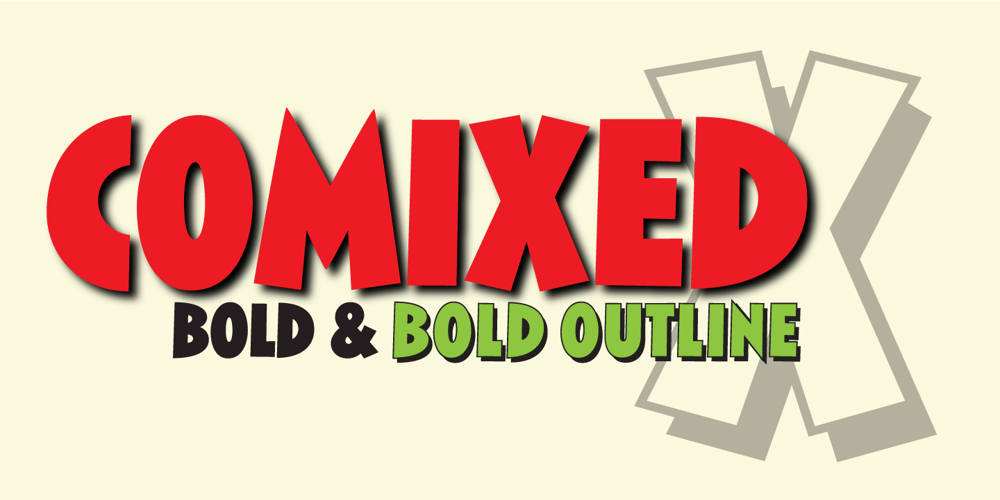
Comixed RP
Comixed RP font
Comixed RP Font Family was designed by Roy Preston and published by BluHead Studio. Comixed RP contains 2 styles and family package options. Comixed RP Bold and Comixed RP Bold Outline are two fonts designed by British designer Roy Preston. Comixed is a bold, condensed cap-only typeface, with a lively, animated charm. The Outline version turns up the fun factor by adding a drop shadow. Used alone or together, both are great for snappy, eye-catching headlines!